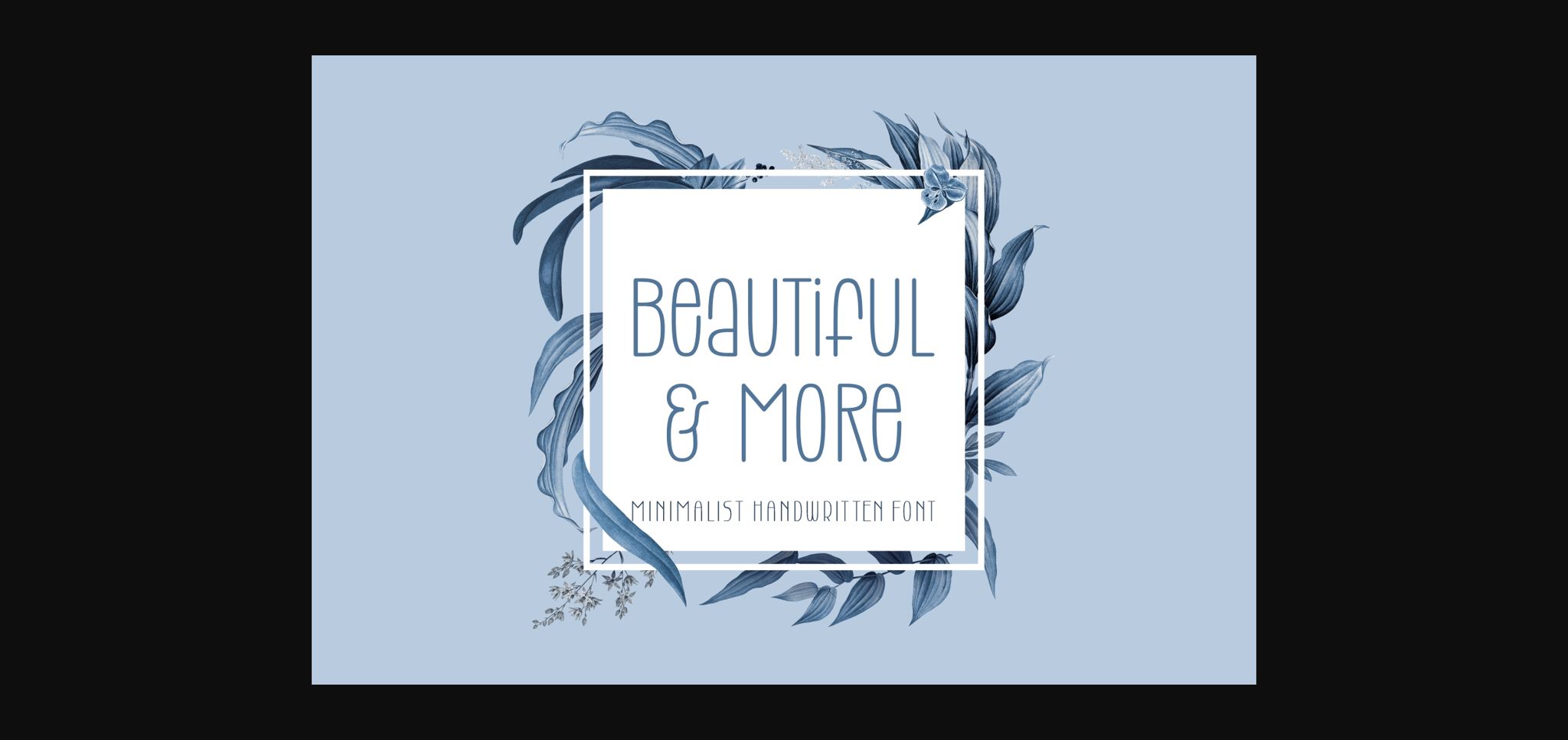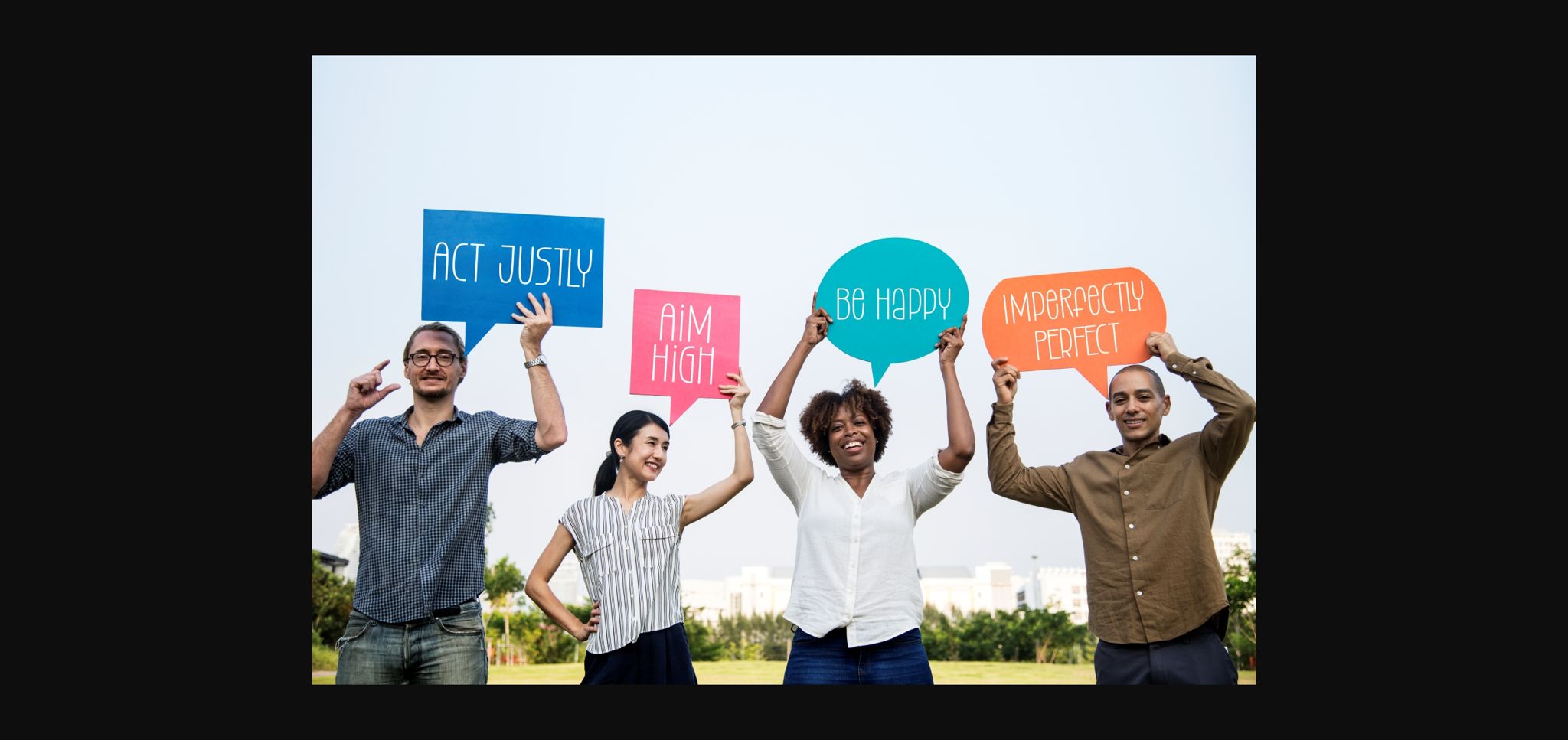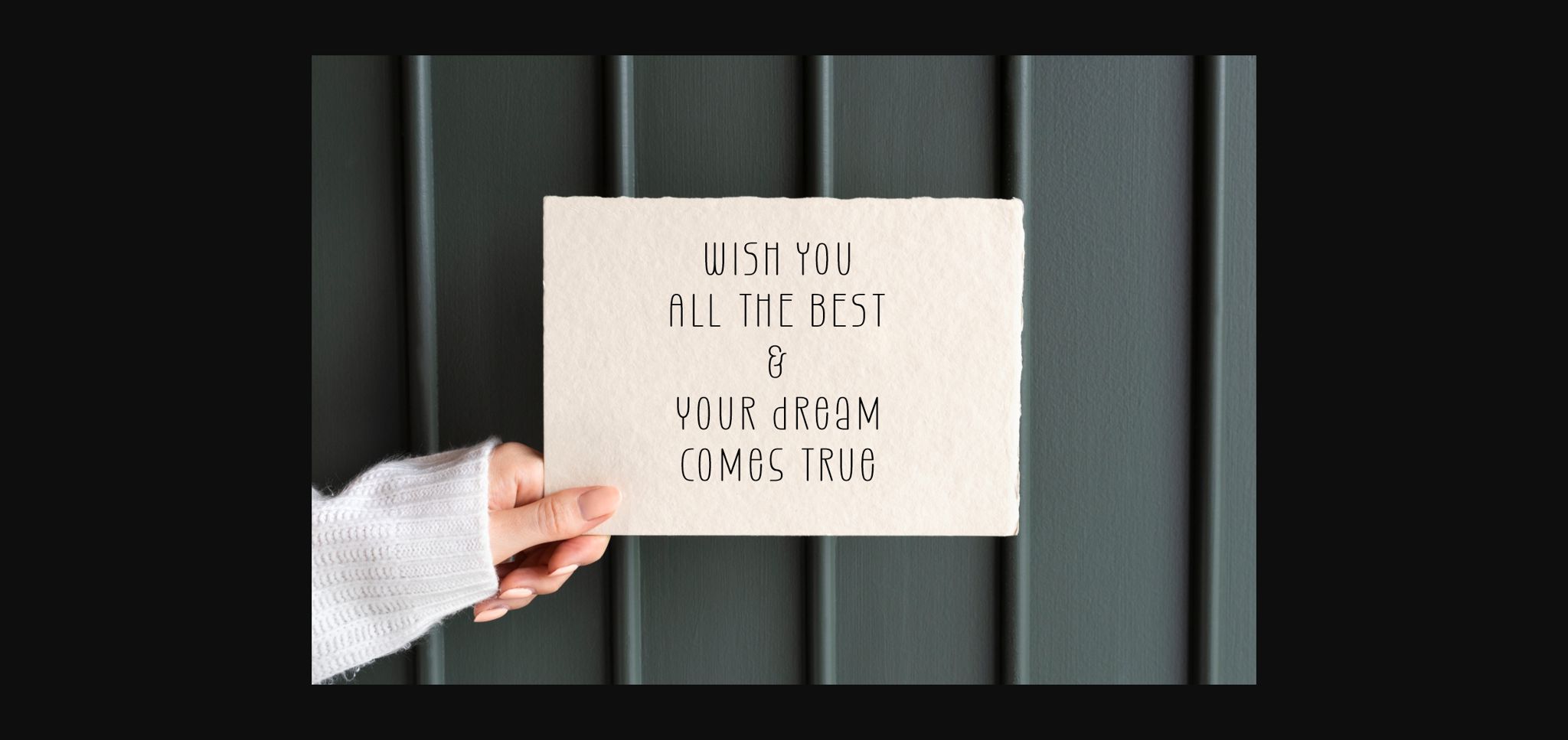
About Beautiful & More Font
Beautiful & More is a simple and thin lettered sans serif font. Minimalist and versatile, this font will match a wide range of formal and informal designs.